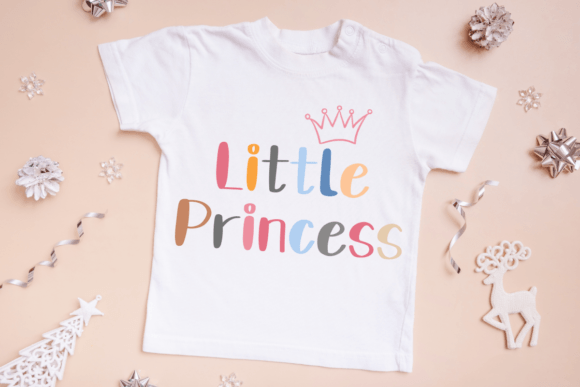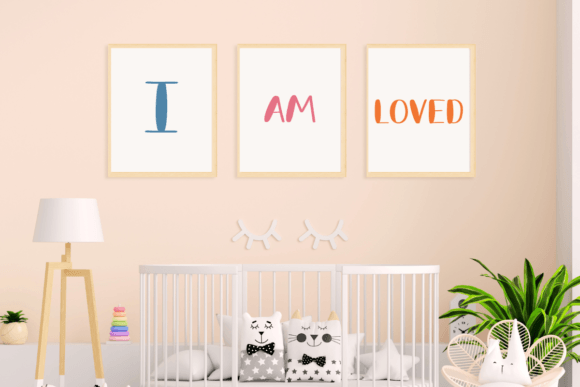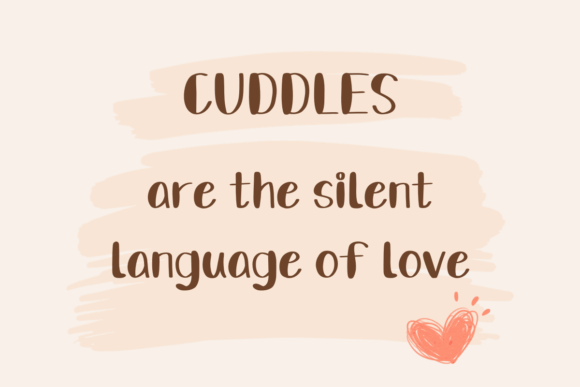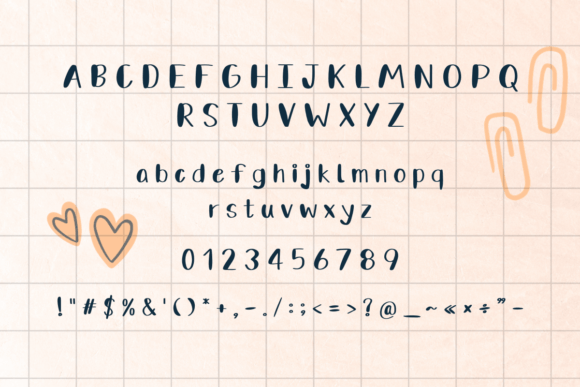
Cuddles Font: The Ultimate Display Font for Crafters and Designers
Are you a designer, crafter, or digital artist looking for a font that can add a touch of fun and playfulness to your projects? Look no further than Cuddles Font! This adorable display font is perfect for a variety of creative endeavors, from crafting and digital designing to presentations and greeting card making.
What is Cuddles Font?
Cuddles Font is a cute, fun, and cartoon-like display font that is sure to capture the hearts of designers and crafters alike. Its playful and whimsical design makes it an ideal choice for projects that require a lighthearted and humorous touch. Whether you’re creating digital art, crafting handmade cards, or designing presentations, Cuddles Font is the perfect addition to your creative toolkit.
Features of Cuddles Font
Cuddles Font boasts a range of features that make it an excellent choice for designers and crafters. Some of its key features include:
- Cute and playful design: Cuddles Font has a unique and charming design that is sure to add a touch of fun and personality to your projects.
- Cartoon-like style: The font’s cartoon-like style makes it perfect for projects that require a playful and whimsical touch.
- Display font: Cuddles Font is a display font, making it ideal for use in headlines, titles, and other prominent text elements.
- Versatile: This font can be used for a wide range of creative projects, from digital art and crafting to presentations and greeting card making.
Uses for Cuddles Font
Cuddles Font is a versatile font that can be used for a variety of creative projects. Some of the ways you can use Cuddles Font include:
- Crafting: Cuddles Font is perfect for crafters who want to add a personal touch to their handmade cards, scrapbook pages, and other projects.
- Digital designing: This font is ideal for digital designers who want to create playful and engaging digital art, social media graphics, and other online content.
- Presentations: Cuddles Font can add a touch of fun and personality to your presentations, making them more engaging and memorable.
- Greeting card making: This font is perfect for creating handmade greeting cards for special occasions, such as birthdays, holidays, and weddings.
Tips for Using Cuddles Font
To get the most out of Cuddles Font, here are a few tips to keep in mind:
- Use it sparingly: Cuddles Font is a display font, so it’s best to use it sparingly to add emphasis and personality to your projects.
- Pair it with other fonts: Cuddles Font can be paired with other fonts to create a unique and visually appealing design.
- Experiment with colors and textures: Don’t be afraid to experiment with different colors and textures to add depth and interest to your projects.
Cuddles Font is a fun, playful, and versatile display font that is perfect for designers, crafters, and digital artists. Its cute and cartoon-like design makes it an ideal choice for projects that require a lighthearted and humorous touch. With its wide range of uses and features, Cuddles Font is a great addition to any creative toolkit.